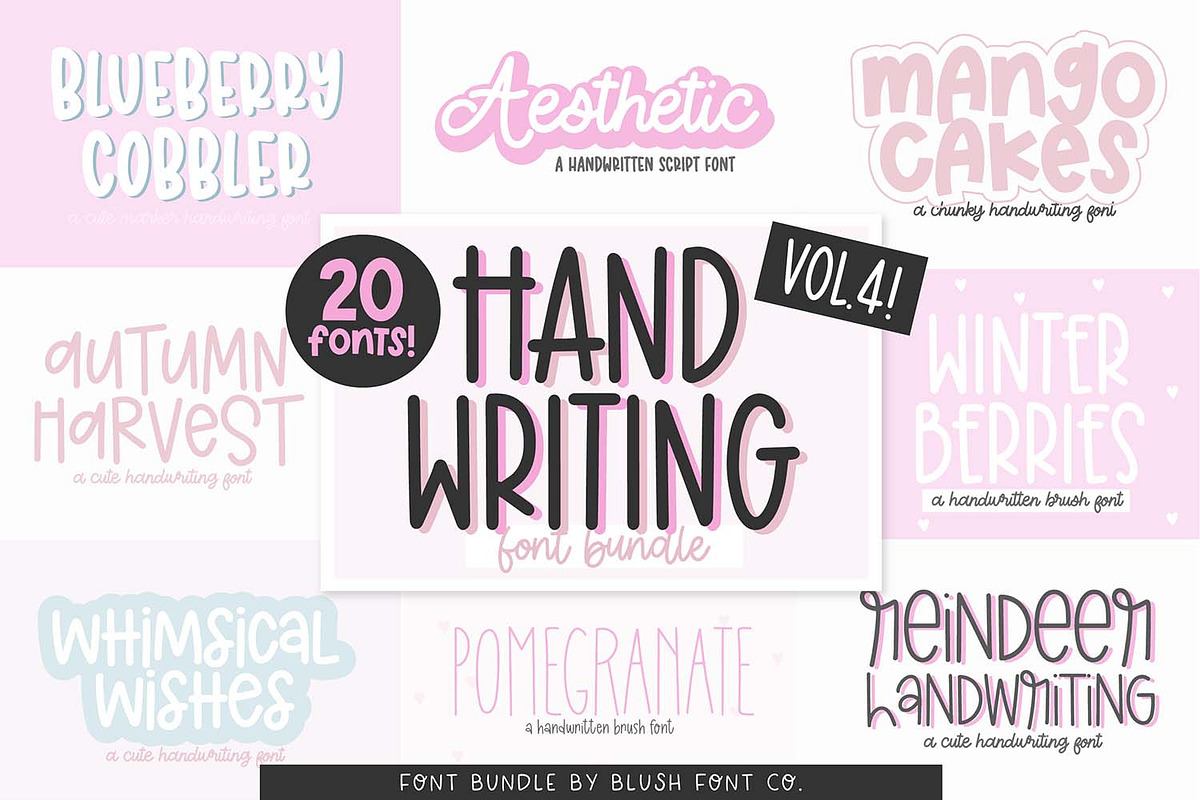
HANDWRITING FONT BUNDLE VOL. 4 Free Download is a diverse collection of stylish and expressive handwritten fonts. This bundle includes a variety of script and display fonts that add a personal, organic touch to your designs. Perfect for creating invitations, logos, social media graphics, greeting cards, branding, and much more, the fonts in this bundle bring a unique, handcrafted feel to your typography.
Whether you’re working on a creative project that requires a casual or elegant handwritten look, Handwriting Font Bundle Vol. 4 offers the right mix of fonts to suit your design needs.